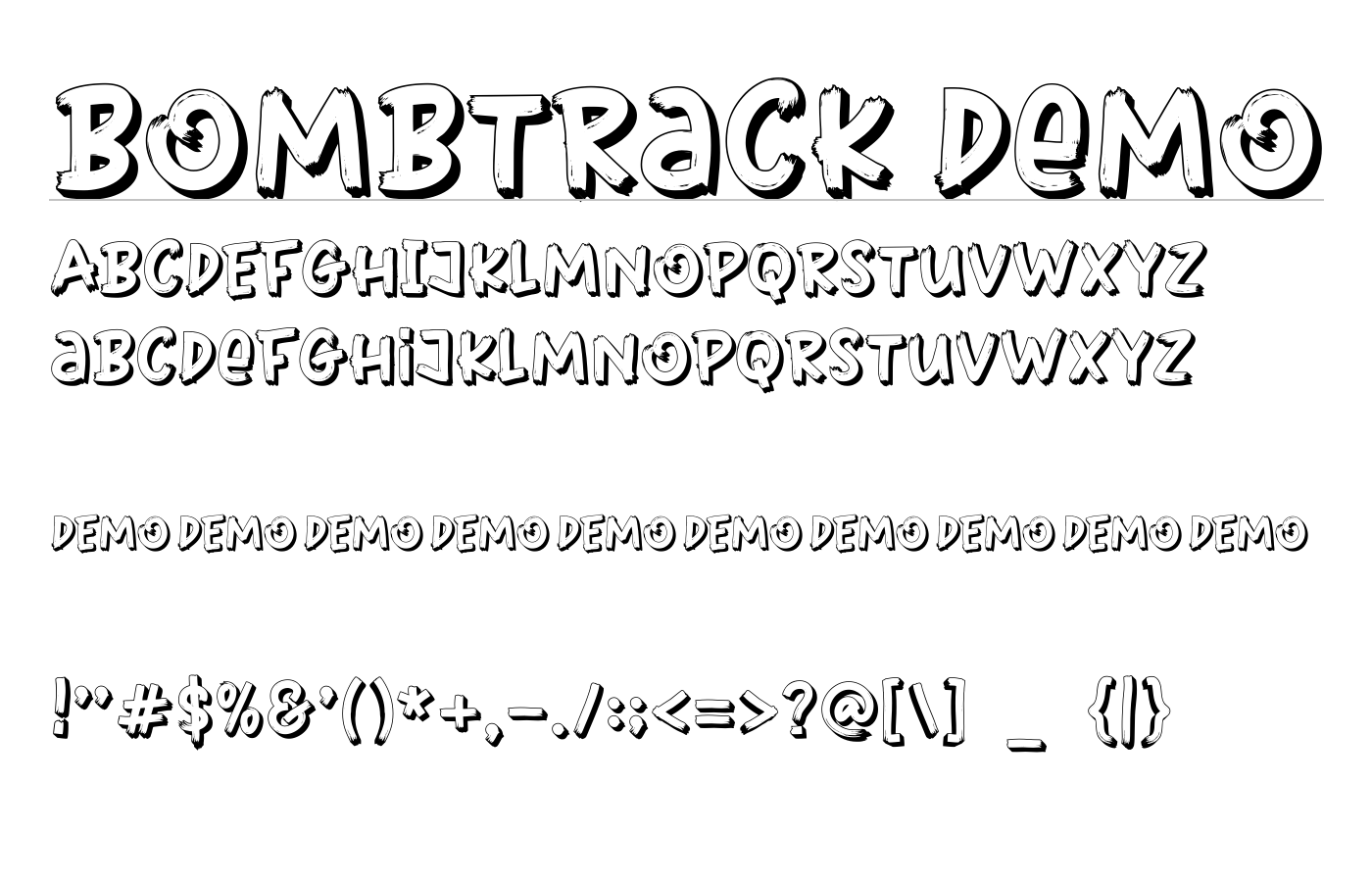
Bombtrack Demo is a bold, playful display font with a hand-drawn, brushstroke texture that gives it a lively, casual feel. Its rounded, slightly irregular letterforms and energetic style make it perfect for eye-catching headlines, posters, and branding that aims to appear fun and approachable. This font works well for creative projects, youth-oriented designs, and any context where a dynamic, informal vibe is desired.
Bombtrack Demo Font
About Bombtrack Demo Font
| Font family | Bombtrack Demo Font |
| Designer | Aldy Sidik |